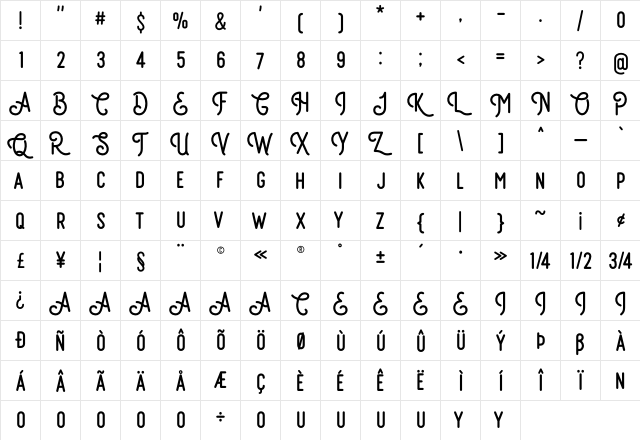
Retrocycles Regular
Design Context for Retrocycles Typeface
Retrocycles wears its vintage influences proudly, with letterforms that recall mid-century signage, classic packaging, and nostalgia-driven design.
Font Pairing: Combine Retrocycles with a simple slab or neutral sans — period-accurate companions reinforce the vintage feel without competing for attention.
Pro Tip: Lean into Retrocycles's period character by pairing it with aged paper textures, muted colour palettes, and vintage illustration styles.